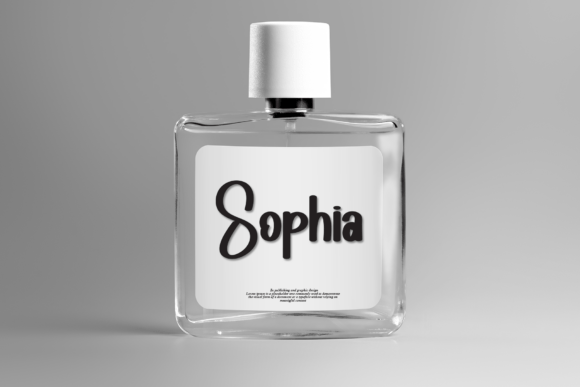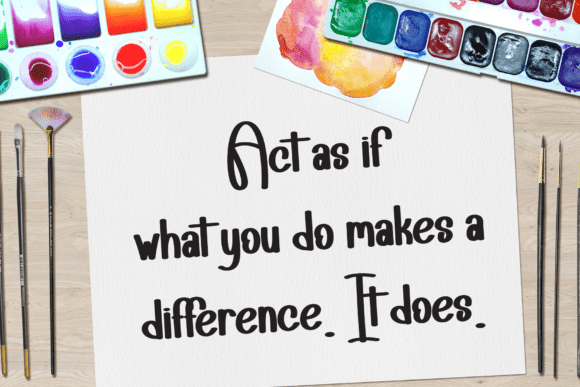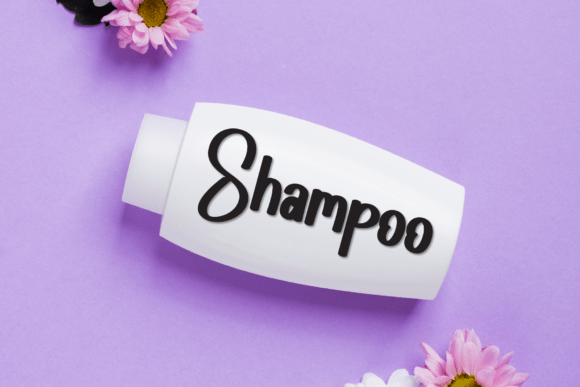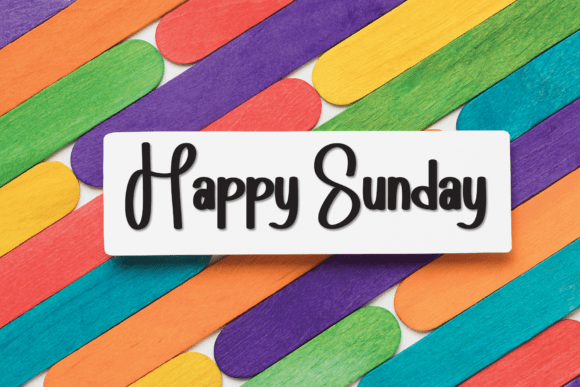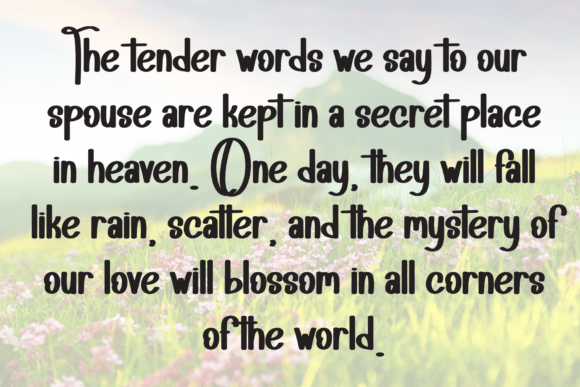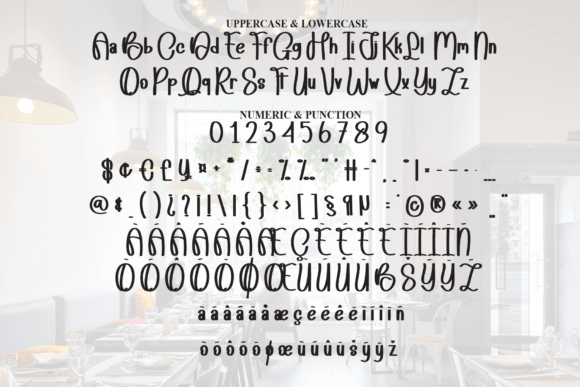
Introduction to Restaurant Font
Have you ever found yourself scribbling down ideas in a coffee shop, only to realize that your handwritten notes are the most creative and inspiring part of the design process? For designers, there’s something special about putting pen to paper and watching an idea come to life. And that’s exactly where the Restaurant Font comes in – a casual, handwritten typeface that captures the essence of those carefree, creative moments.
Perfect for notes, educational materials, and a wide range of creative projects, the Restaurant Font is a valuable design resource that adds warmth, clarity, and a personal touch to any design. Its smooth strokes and relaxed letterforms create a natural, authentic look that’s hard to find in other fonts. And the best part? It’s available for free download, making it a high-quality design asset that won’t break the bank.
Key Features of Restaurant Font
- High-quality design for creative projects, including restaurant menus, signs, and branding materials.
- Unique characteristics include a modern, elegant, and sophisticated design style, making it perfect for upscale restaurants and bars.
- Comprehensive character set, including Latin, Cyrillic, and Greek alphabets, as well as punctuation and symbols.
Honest Review: Restaurant Font
The Restaurant Font is a free download that offers a modern and sophisticated look, making it perfect for restaurants, cafes, and other food-related businesses. The font features a clean and minimalistic design, with a transparent background that makes it easy to use on any background image or color.
- Modern and sophisticated look that’s perfect for food-related businesses
⚠️ One limitation I noticed is that the font is not as extensive as some other font families. It only includes a limited number of styles and weights, which may not be suitable for more complex design projects.
The Restaurant Font is perfect for restaurants, cafes, and food establishments looking to create a professional and inviting atmosphere. Use the font to create menus, flyers, and other promotional materials that showcase your brand and menu offerings.